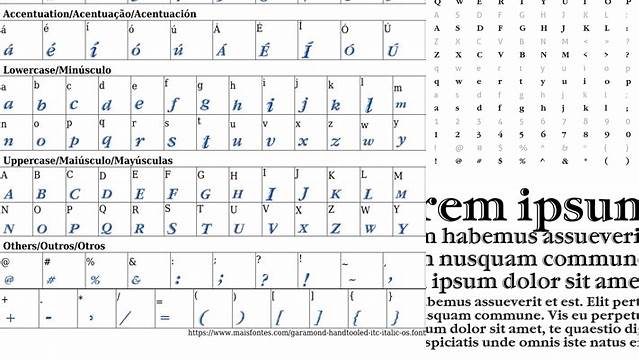
ITC Garamond Handtooled OS Font Free Download: A Comprehensive Guide
ITC Garamond Handtooled OS: A Deep Dive into the Font's History and Characteristics
Let's start with the basics, shall we? ITC Garamond Handtooled OS is a variation of the classic Garamond typeface, known for its timeless beauty and readability. The 'Handtooled' aspect adds a unique, textured feel, making it perfect for designs that want to evoke a sense of craftsmanship and artistry. Guys, this font isn't just a font; it's a statement! The original Garamond was created by Claude Garamond, a 16th-century French punch-cutter. His work became synonymous with elegance and sophistication. ITC Garamond Handtooled OS takes this legacy and gives it a modern twist. The handtooled effect, which you will be able to get with a free download, gives the letters a slightly rough, uneven texture, as if they were made by hand. This adds personality and warmth to your designs, setting them apart from the often-sterile look of modern, sans-serif fonts. This font is like the vintage denim jacket of the font world: classic, adaptable, and always in style. The handtooled aspect offers a subtle nod to the past while retaining a modern appeal. This blend makes it incredibly versatile. The font works well in a variety of contexts, from print materials to websites, from branding to editorial design. It's the kind of font that makes people stop and take a second look, which is always a good thing, right? The beauty of ITC Garamond Handtooled OS lies in its details. The curves of the letters, the slight variations in the strokes, and the overall balance make it a visual treat. Whether you're a designer, a blogger, or just someone who loves beautiful typography, this font deserves a spot in your toolkit. And, of course, the fact that you can often find a free download makes it even more attractive. So, if you appreciate the finer things in design, this font is definitely worth checking out. It's not just about aesthetics; it's about using a tool that elevates your message and makes it more memorable. The handtooled texture adds a layer of depth that's hard to achieve with other fonts, giving your work a unique edge. Get ready to make your designs stand out!